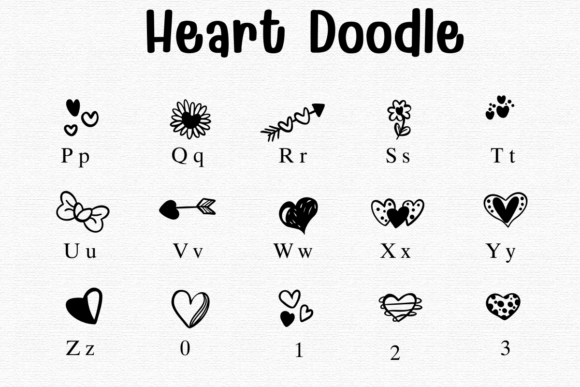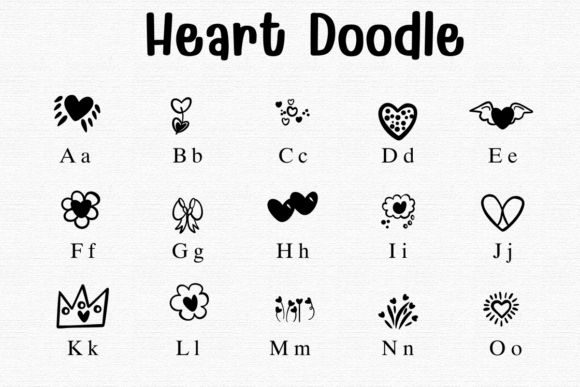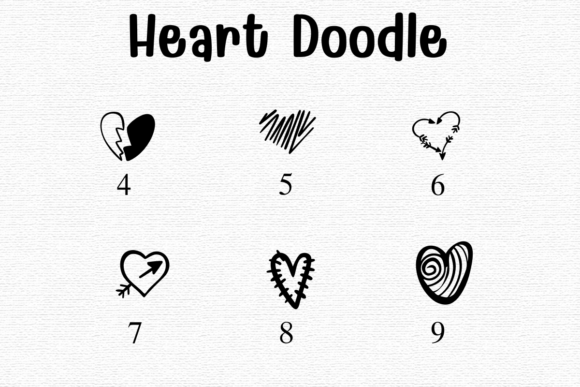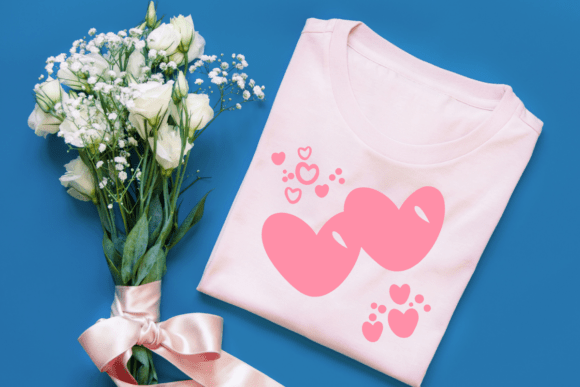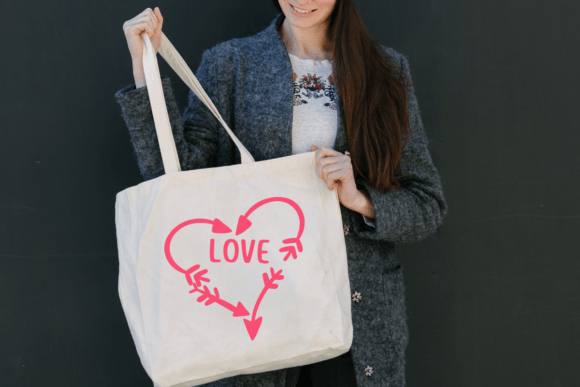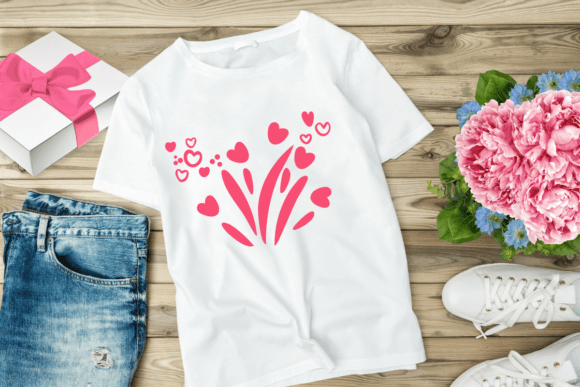
Heart Doodle Font: The Perfect Addition to Your Romantic Designs
Are you looking for a font that can add a touch of romance and whimsy to your designs? Look no further than the Heart Doodle Font. This charming dingbats font is packed with heart shapes, love icons, cute flowers, and doodled arrows, making it the perfect choice for Valentine’s Day projects, greeting cards, couple logos, and any other sweet and loving design.
What is Heart Doodle Font?
Heart Doodle Font is a unique and expressive font that features a wide range of heart-themed doodles. From cute and simple heart shapes to more intricate designs, this font has everything you need to create romantic and eye-catching designs. The font includes:
- Heart shapes in various sizes and styles
- Love icons, such as Cupid’s arrow and love birds
- Cute flowers and floral designs
- Doodled arrows and other decorative elements
Perfect for Valentine’s Day Projects
Valentine’s Day is just around the corner, and with Heart Doodle Font, you’ll be able to create beautiful and romantic designs that will make your loved ones feel special. Whether you’re designing greeting cards, gift tags, or social media graphics, this font is sure to add a touch of love and whimsy to your creations.
Here are some ideas for using Heart Doodle Font in your Valentine’s Day projects:
- Create custom greeting cards with heartwarming messages
- Design beautiful gift tags with cute heart-shaped doodles
- Make romantic social media graphics with love icons and flowers
- Develop a custom Valentine’s Day-themed logo or branding for your business
Ideal for Greeting Cards and Stationery
Heart Doodle Font is not just limited to Valentine’s Day projects. It’s also perfect for creating beautiful greeting cards and stationery for any occasion. Whether you’re designing a wedding invitation, a birthday card, or a simple thank-you note, this font will add a touch of elegance and whimsy to your designs.
Here are some ideas for using Heart Doodle Font in your greeting cards and stationery:
- Create custom wedding invitations with heart-shaped doodles
- Design beautiful birthday cards with cute flowers and love icons
- Make personalized thank-you notes with doodled arrows and hearts
Great for Couple Logos and Branding
If you’re a designer or business owner looking for a unique and romantic font to use in your couple logos or branding, Heart Doodle Font is the perfect choice. This font features a wide range of heart-themed doodles that will add a touch of love and whimsy to your designs.
Here are some ideas for using Heart Doodle Font in your couple logos and branding:
- Create custom logos for wedding planners, florists, or other wedding-related businesses
- Design romantic branding for couples, including social media graphics and stationery
- Develop a custom logo or branding for a couples’ retreat or romantic getaway
Tips for Using Heart Doodle Font
Here are some tips for using Heart Doodle Font in your designs:
- Experiment with different font sizes and styles to add visual interest to your designs
- Combine Heart Doodle Font with other fonts to create a unique and eye-catching design
- Use the font’s built-in doodles and graphics to add a touch of whimsy to your designs
- Don’t be afraid to get creative and try new things – Heart Doodle Font is all about experimentation and self-expression!
Heart Doodle Font is a romantic and expressive dingbats font that’s perfect for Valentine’s Day projects, greeting cards, couple logos, and any sweet and loving design. With its wide range of heart-themed doodles, this font is sure to add a touch of love and whimsy to your creations. Whether you’re a designer, crafter, or business owner, Heart Doodle Font is a great addition to your font collection.